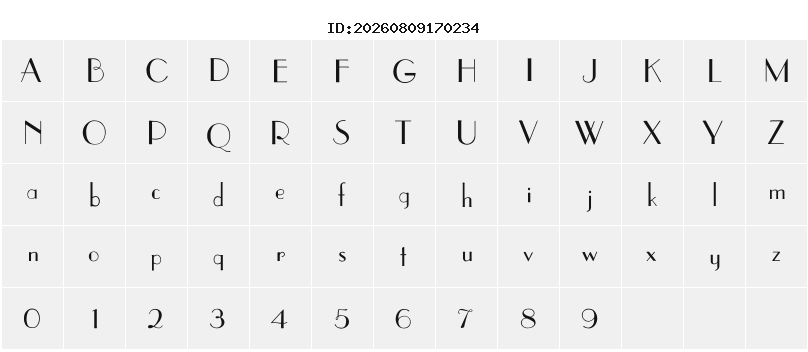
Parisian-Normal Preview
• Font Name: Parisian-Normal
• Full Font Name: Parisian-Normal
• PostScript Name: Parisian-Normal
About Parisian-Normal.ttf
Parisian-Normal.ttf is a modern, elegant sans-serif font designed for ultimate readability and visual harmony. Perfect for branding, headlines, web design, and print materials.